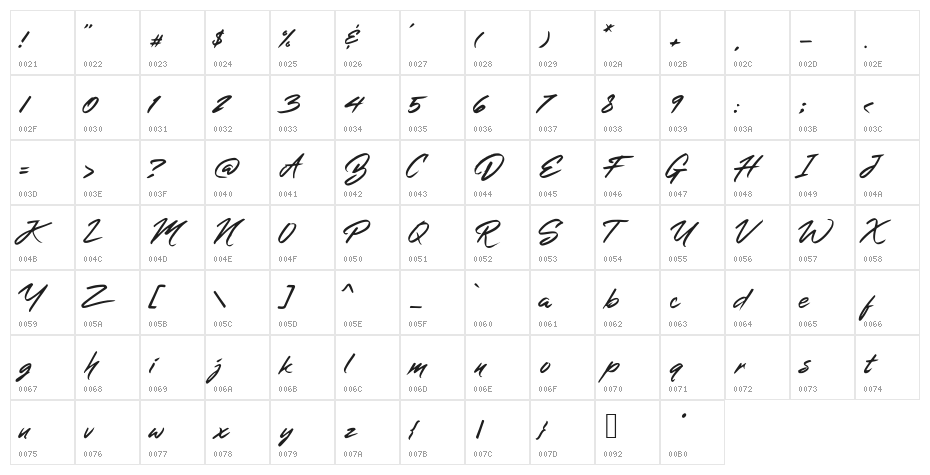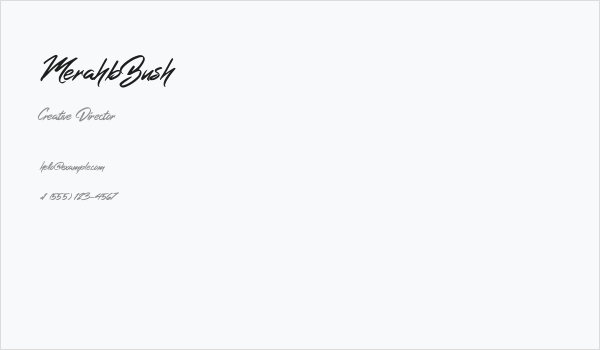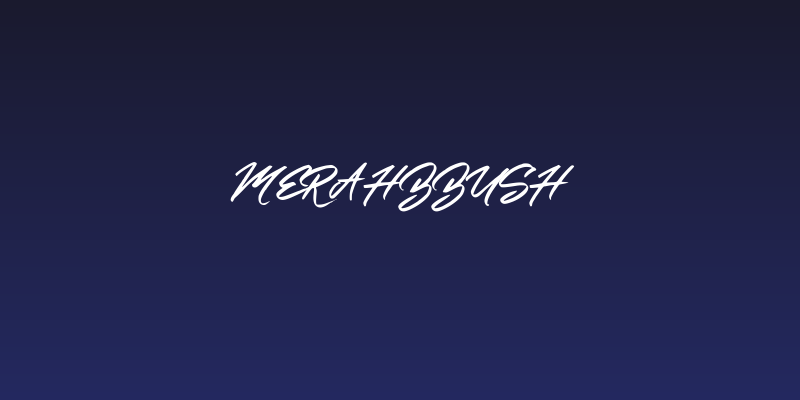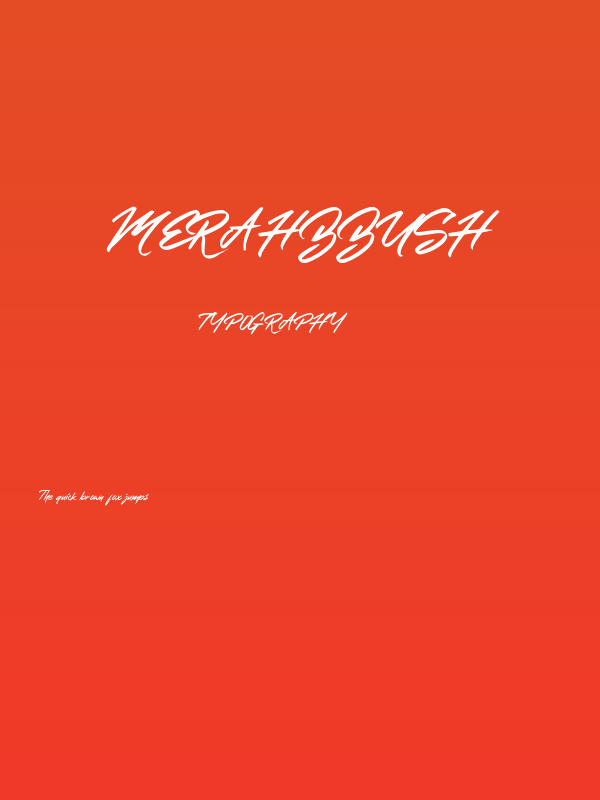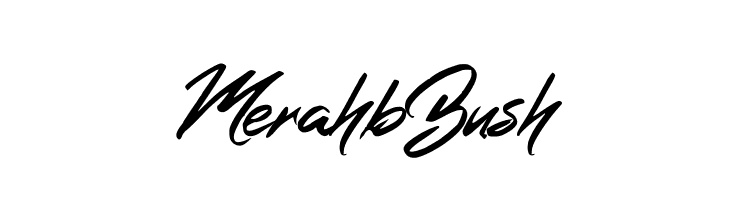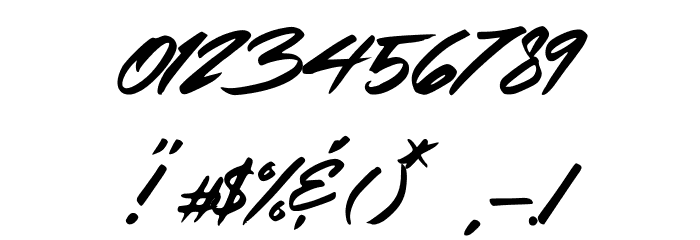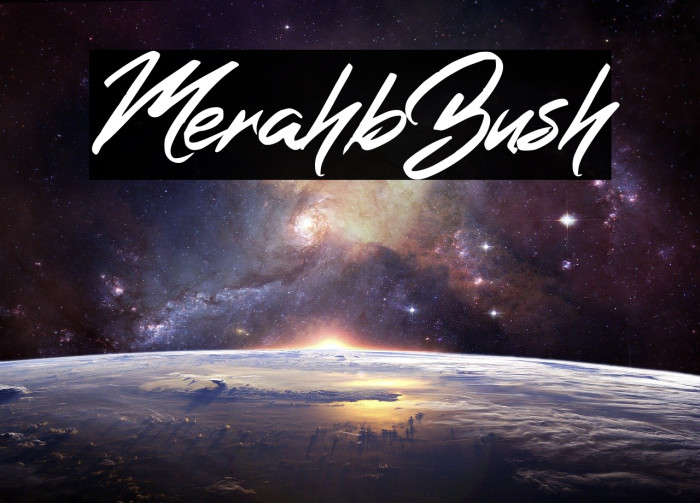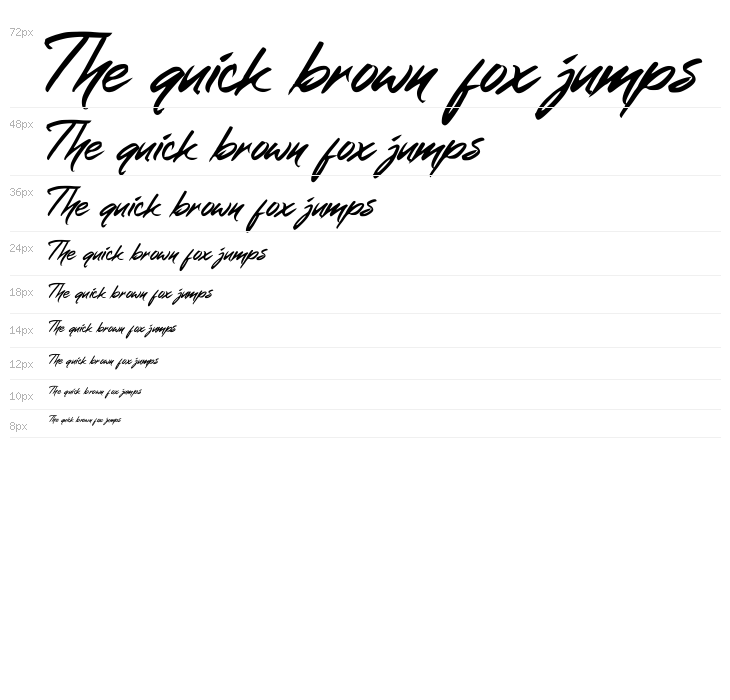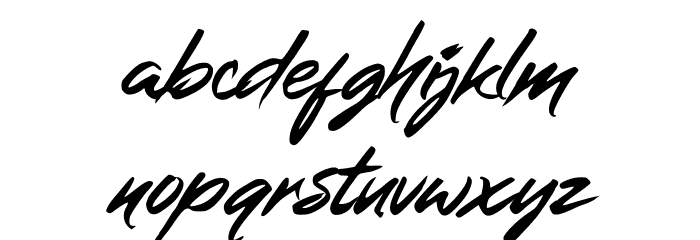
MerahbBush Font
MerahbBush Description
This font exhibits a dynamic and energetic script style, characterized by its fluid and cursive strokes. The letters are interconnected, creating a seamless flow that mimics natural handwriting. The uppercase letters are bold and prominent, while the lowercase letters maintain a consistent rhythm. The numerals and special characters are designed to match the overall aesthetic, ensuring uniformity across all characters. This font's expressive nature makes it suitable for creative and artistic projects, where a personal touch is desired.
MERAHBBUSH UPPERCASE
MERAHBBUSH LOWERCASE
MERAHBBUSH OTHER CHARS
| Proposed Projects | Ideal for wedding invitations, greeting cards, branding, and artistic projects that require a personal and elegant touch. |